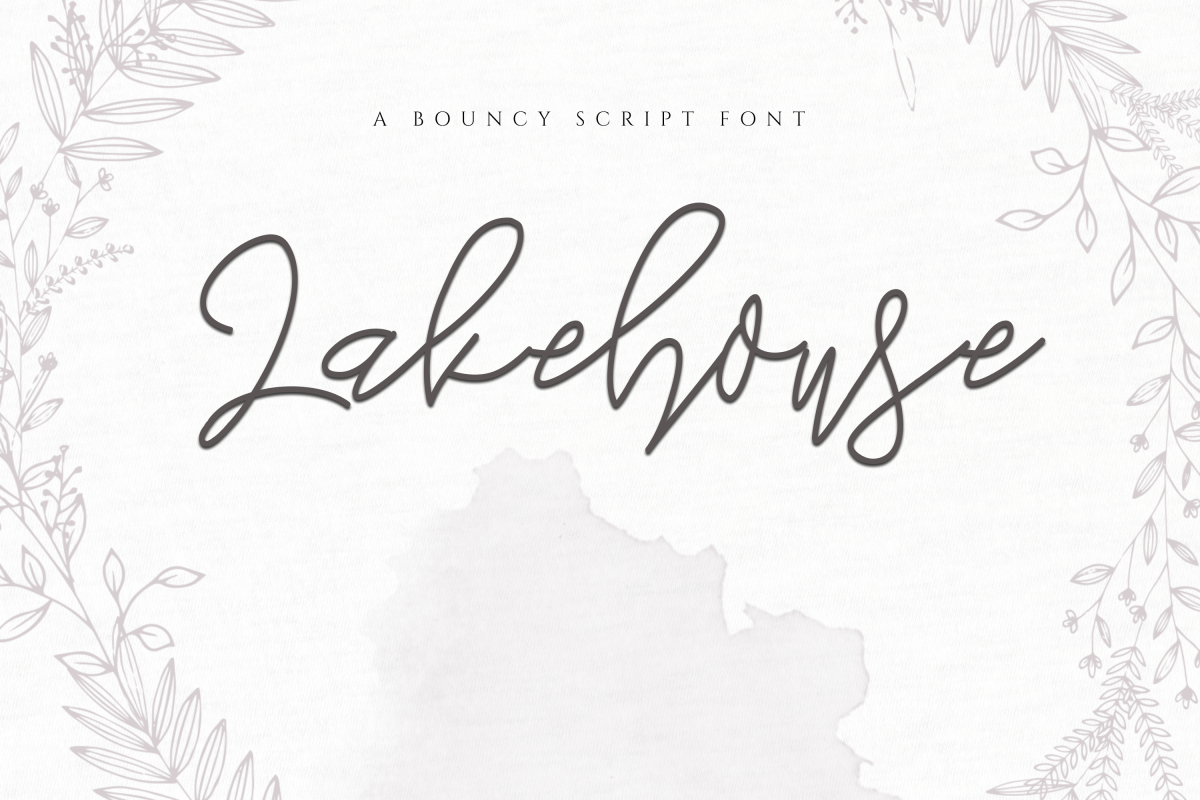
Lakehouse - Fancy Script Font
Lakehouse is a fancy, handwritten script font.
It is delicate and sharp.
Perfect for invitations, stationary, business cards, blogs, web design, logos and advertisements.
This font does include accent characters.